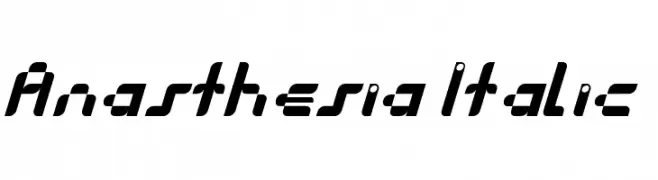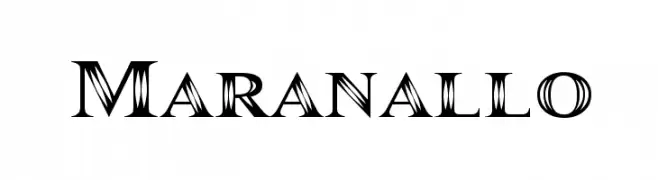
( Fonts by Dieter Schumacher )
A modern, italicized font with bold, angular lines and a futuristic style.
( Fonts by Graham Meade - GemFonts )
A bold, decorative font with high contrast and intricate details.